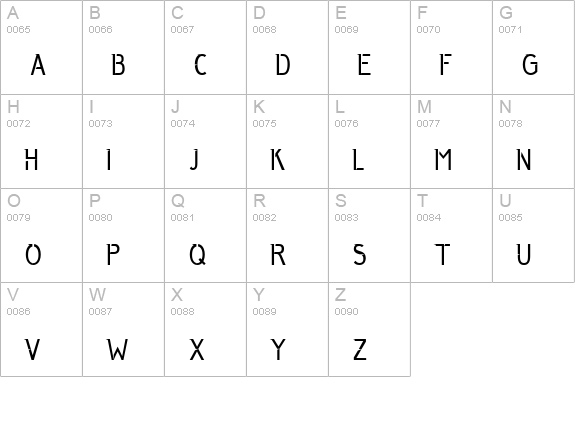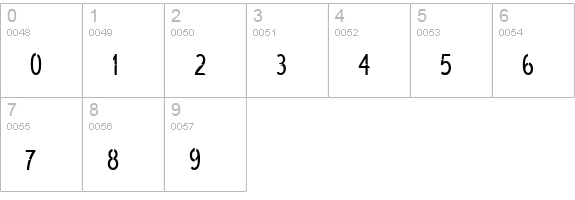
Anggun Font Details
Anggun is a free for personal use font in the General > Serif category, designed by madeDeduk. It has been downloaded 227 times and is available for Windows, Mac and Linux.
Anggun font is a versatile and elegant typeface that exudes sophistication and style. With its graceful curves and charming details, this font is perfect for adding a touch of beauty to your projects. Whether you are designing invitations, branding materials, or social media graphics, Anggun font will elevate your work to the next level.